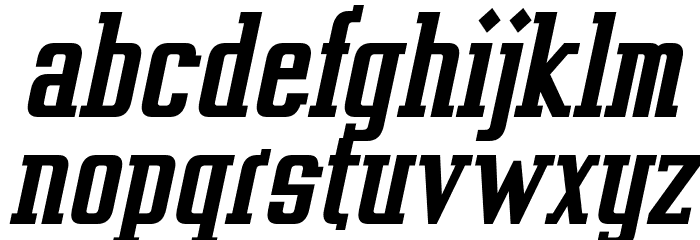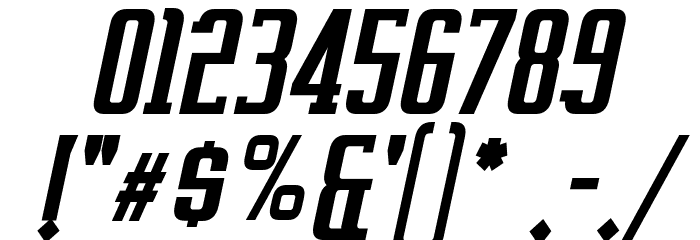
Vahika-BoldItalic Font
This font features a bold and italicized style with a strong presence. The characters are slightly condensed, giving it a compact and efficient look. The strokes are consistent in thickness, providing a uniform appearance across all characters. The uppercase letters are tall and commanding, while the lowercase letters maintain a balanced proportion. The numerals are clear and easily distinguishable, making them suitable for various applications. Special characters are well-defined, adding versatility to the font. Its overall design is modern and dynamic, suitable for impactful headlines and attention-grabbing text.
- Font: Vahika-BoldItalic
- Proposed Projects: Ideal for branding, advertising, posters, and any project requiring a bold statement.